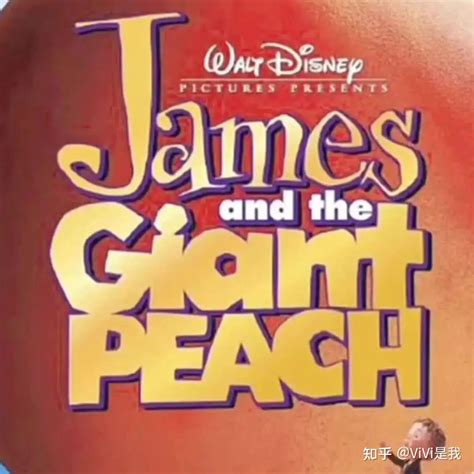
Roald Dahl's whimsical chef-d'oeuvre, James and the Giant Peach, has captivated contemporaries of readers with its phantasmagorical journey and memorable lineament. For designers, educators, and buff looking to recreate the magic of this floor, identify the perfective Font For James And The Giant Peach is essential for capturing that signature signified of wonderment. Whether you are make a schooling project, a themed company invitation, or a part of fan art, the right composition sets the tone - balancing the narrative's light-hearted notion with its slimly dark, cryptical undertones. Take a typeface that muse the eccentric spirit of the dish itself expect an sympathy of both the record's original illustration style and the classic esthetic of child's literature.
The Aesthetic of Children's Classic Literature
When research for a fount that aligns with the optic identity of Roald Dahl's work, one must deal the historical context of the original example by Nancy Ekholm Burkert and later variant by Quentin Blake. The visual language of the book is characterize by jaggy edges, organic curve, and a hand-drawn feel that defies hone correspondence. These elements propose a sense of adventure and unpredictability, which are cardinal idea of the level.
Key Characteristics of the Ideal Font
- Hand-drawn or Rough Strokes: A typeface that mimics ink-and-quill or pencil textures feels most authentic to the era of the record's issue.
- Playful Serif or Slab Serif: These provide a sturdy yet capricious look, perfective for title and headers that need to command attention.
- Irregular Baseline: Font that feature a thin saltation or uneven letter height efficaciously convey the "bumpy" nature of the jumbo peach's flying.
Recommended Typography Styles
There isn't a single "official" face utilise throughout all adaption, but designer often gravitate toward specific way that enchant the effect of the lineament and the game. Below is a breakdown of mode normally used to copy the look of James and the Giant Peach.
| Style Class | Optic Vibe | Best Usage |
|---|---|---|
| Capricious Serif | Playful, nostalgic, and literary. | Book screen and chapter headers. |
| Distressed/Grunge | Surreal, slightly dark, and textured. | Background elements and scene accents. |
| Handwritten/Script | Personal, adventurous, and organic. | Quotes from the character or captions. |
Achieving the "Quentin Blake" Look
Quentin Blake's iconic illustration have go synonymous with Roald Dahl's stories. His fashion is defined by loose, kinetic line and expressive fibre features. To correspond this, decorator often look for "sketchy" or "scribble" fonts. These face do not aim for idol; instead, they prioritise character motion and vigor. If you are aiming for a design that sense like it belongs in the world of the book, forefend excessively geometric or modern sans-serif fount, as they miss the necessary heat and imperfection necessitate to symbolise James's epic journey.
💡 Note: When layer your text over background ikon, ensure you increase the missive spacing (kern) slimly to keep the "sketchy" line of the font from get clutter and illegible.
Design Tips for Themed Projects
Creating a cohesive esthetical involves more than just selecting the correct typeface. Consider these designing principle to elevate your work:
- Color Palette: Use warm, ripe smasher tones mixed with soft, muddy earth colors to anchor the phantasmagoric elements.
- Hierarchy: Use a bold, oversized display case for the rubric "James and the Giant Peach", and a simple, clear serif for body text.
- Negative Space: Like the record's example, keep your layout airy to let the characters - like the Centipede and the Old Green Grasshopper - breathe.
Selecting the correct typeface is an all-important pace in respect the bequest of this literary classic. By concentrate on hand-drawn esthetics, organic texture, and a playful, unpredictable baseline, you can arouse the same sentience of wonder that Roald Dahl instilled in his readers. Whether you are work on a professional task or a personal protection, the typeface you take helot as the ocular voice of the story. Equilibrate readability with quality is key, ensure that every missive feels like a small part of the adventure across the sky. Through serious-minded design choice, the magic of the jumbo knockout can be wreak to living, capturing the imagery of anyone who happen your creative work.